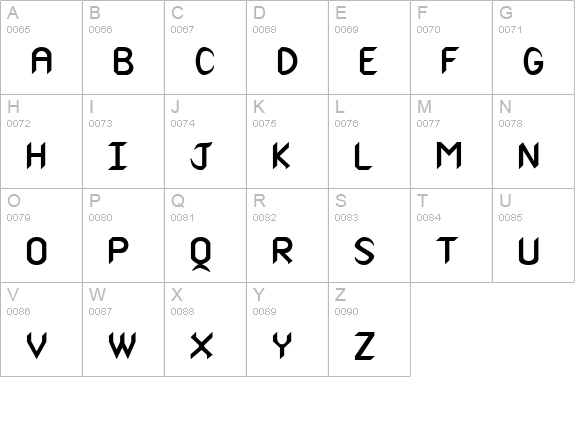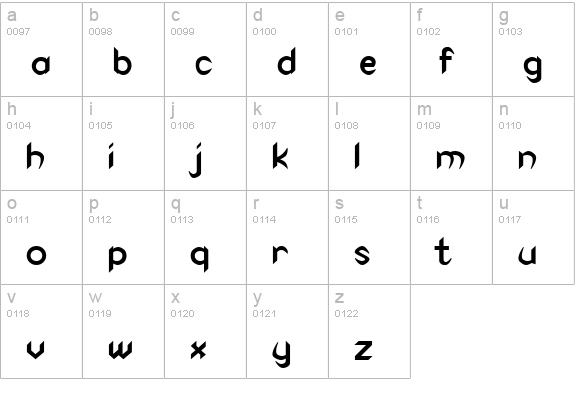
Spike-Condensed Bold Font Details
Spike-Condensed Bold is a strong, high-contrast, condensed-width variant in the Spike typeface family \xE2\x80\x94 well suited to headlines, attention-grabbing titles, and strong calls-to-action.
Introducing Spike-Condensed Bold, a striking and contemporary font that effortlessly combines strength and elegance. This font exudes confidence with its bold, condensed letterforms that demand attention and leave a lasting impression. Whether used for headings, titles, or prominent text, Spike-Condensed Bold adds a touch of sophistication to any design project. The sharp edges and strong presence of this font make it ideal for modern, edgy designs that require a touch of boldness. Its condensed nature allows for efficient use of space, making it perfect for designs that require a sleek and streamlined appearance. With each character meticulously crafted, Spike-Condensed Bold maintains its legibility even at smaller sizes, ensuring that your message is conveyed with clarity and impact. But what sets Spike-Condensed Bold apart from other fonts is its availability for free! That's right, this impressive font is freely available to download at FontsMarket.com. Now you can add a touch of boldness and style to your designs without breaking the bank. Whether you are a professional designer or a creative enthusiast, Spike-Condensed Bold is the perfect addition to your font collection. So why wait? Download Spike-Condensed Bold today and elevate your designs to new heights. With its bold and condensed letterforms, this font will captivate your audience and make a lasting impression. Don't miss out on this opportunity to enhance your designs with a font that is both powerful and free. Get Spike-Condensed Bold at FontsMarket.com and unleash your creativity now!